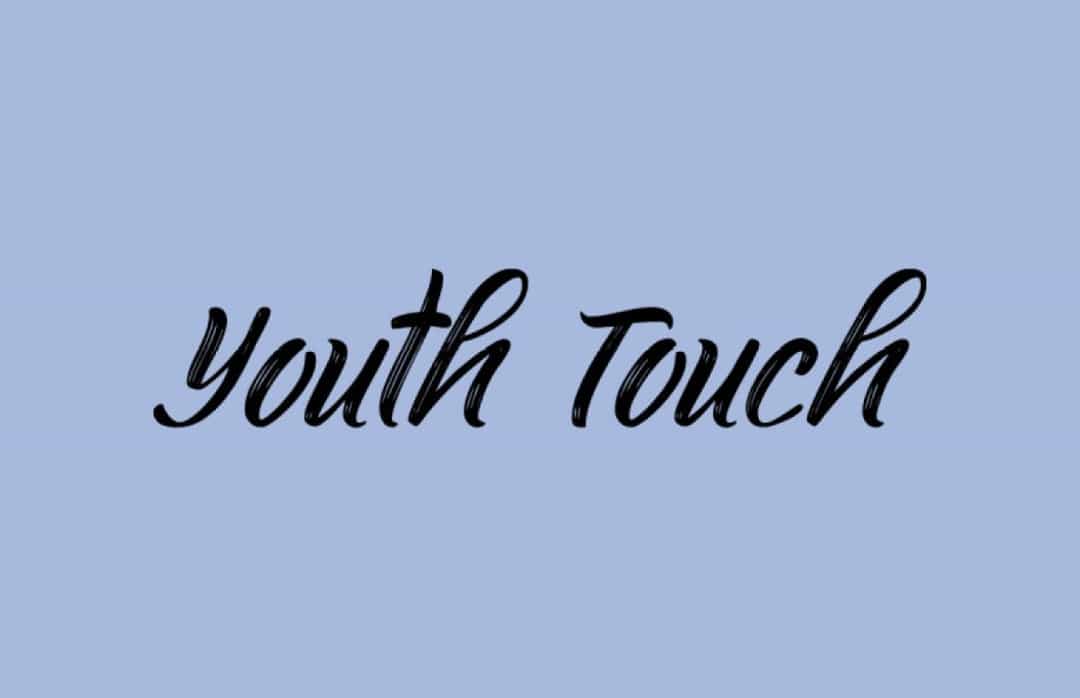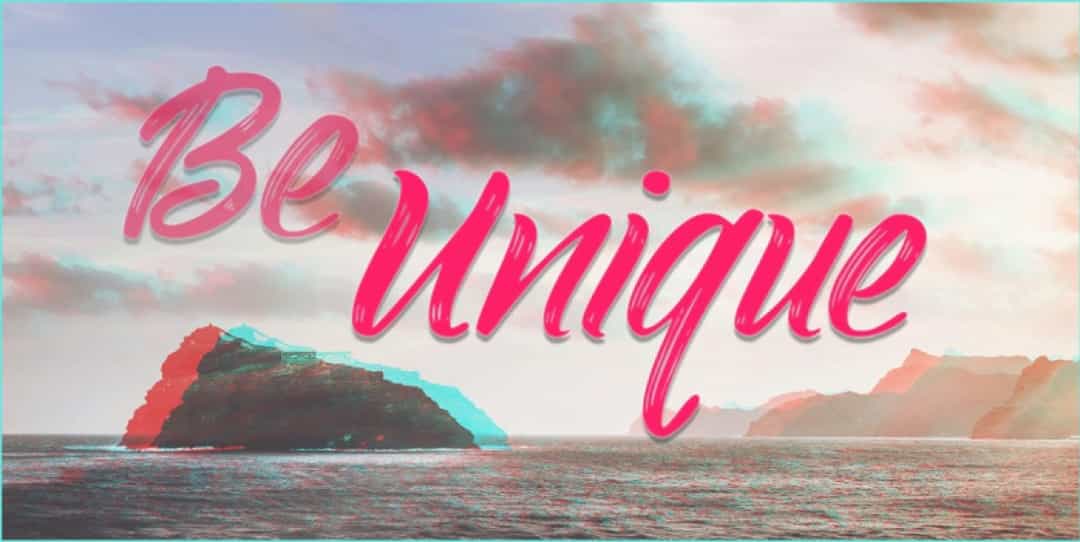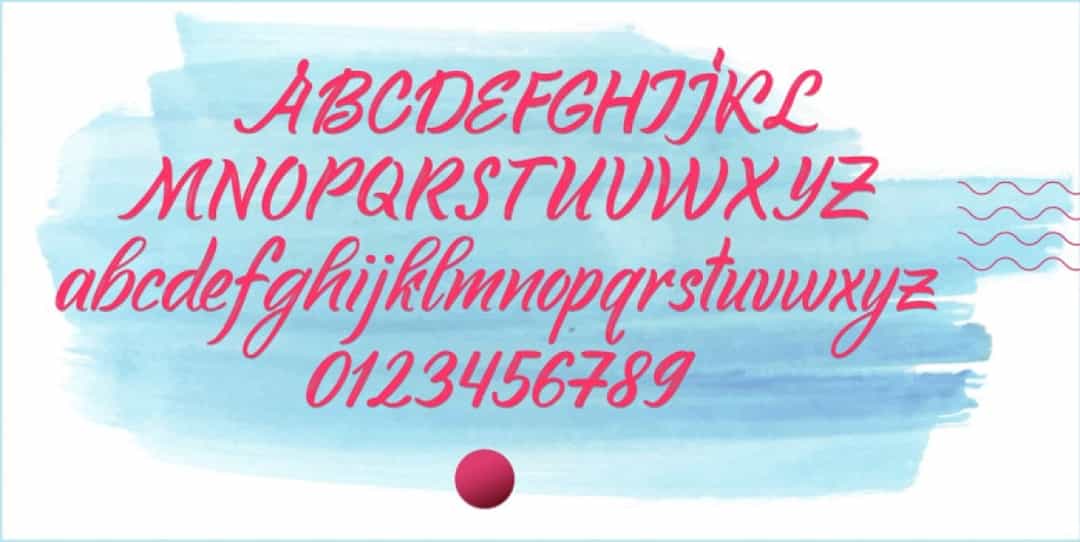
Discover Youth Touch Font, part of the Brush collection—a versatile and unique font perfect for adding a personal touch to your projects. Download it for free and enjoy crafting designs with style, from invitations to social media posts. This font is available exclusively for personal use, giving you the freedom to create without limits. Unlock your creativity with Youth Touch Font today!
Youth Touch by Herofonts(tm) is a premium brush script font available free to download and personal use. The free version includes uppercase letters as well as some unique characters for personal use.